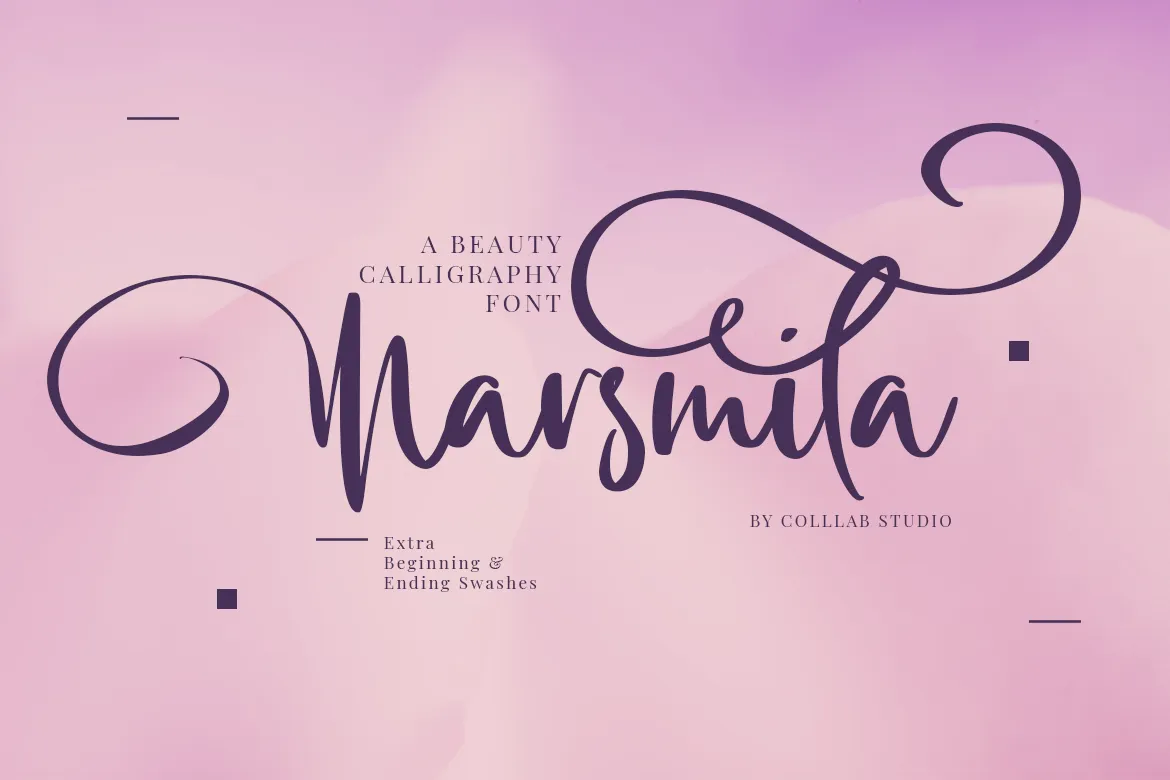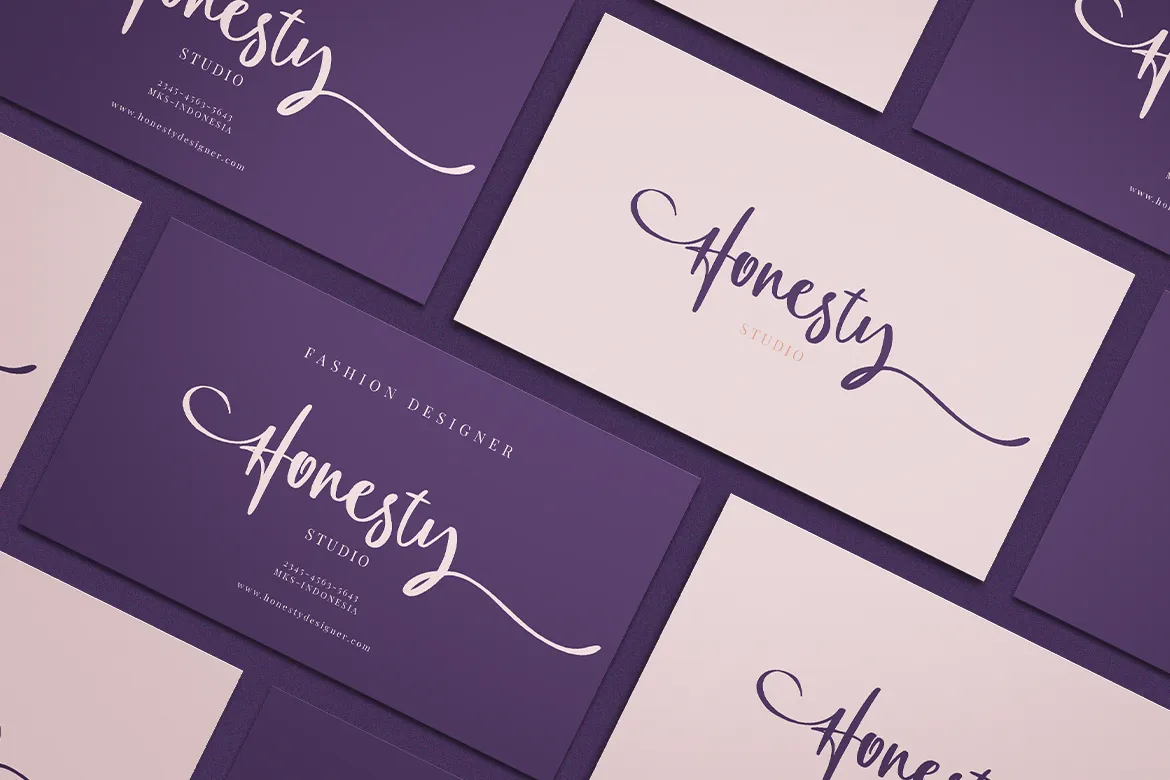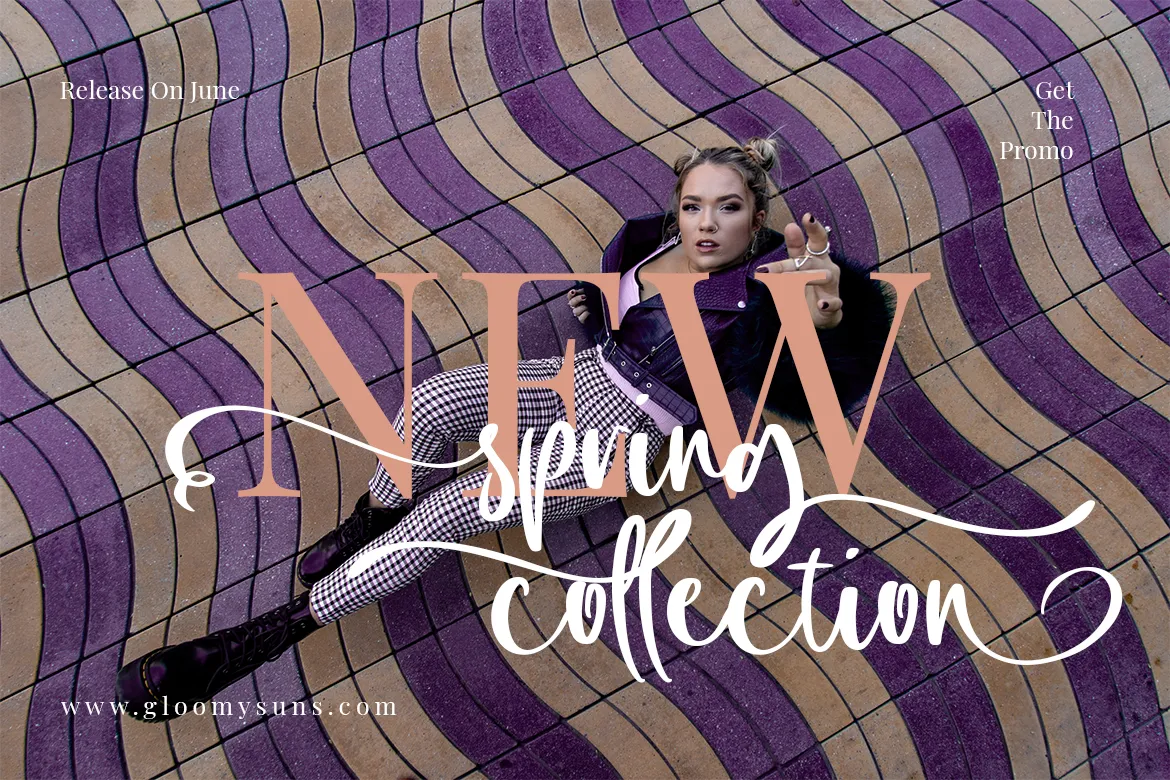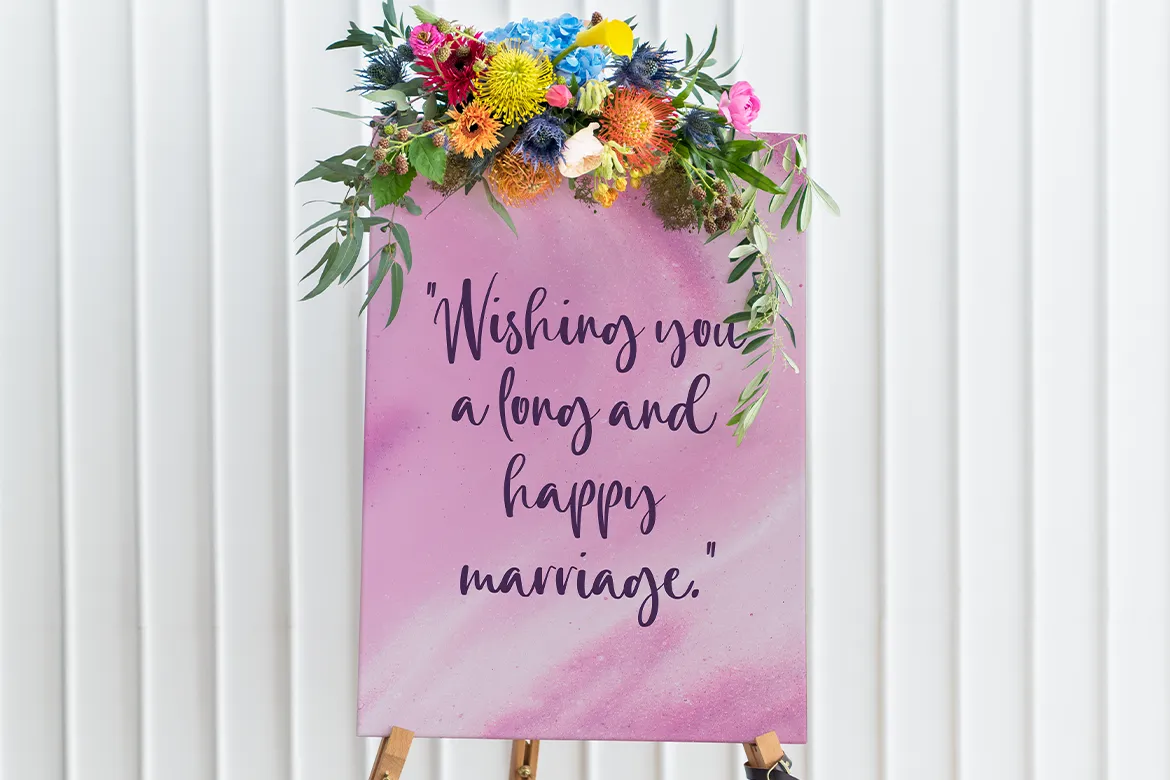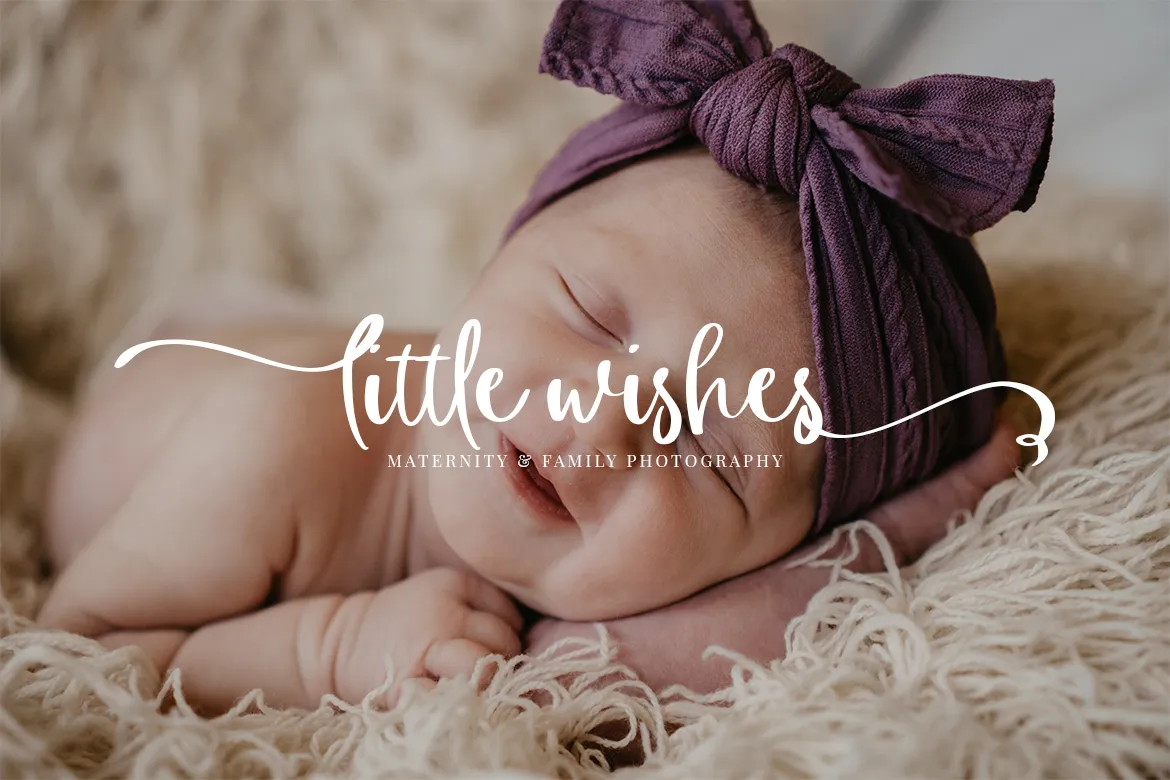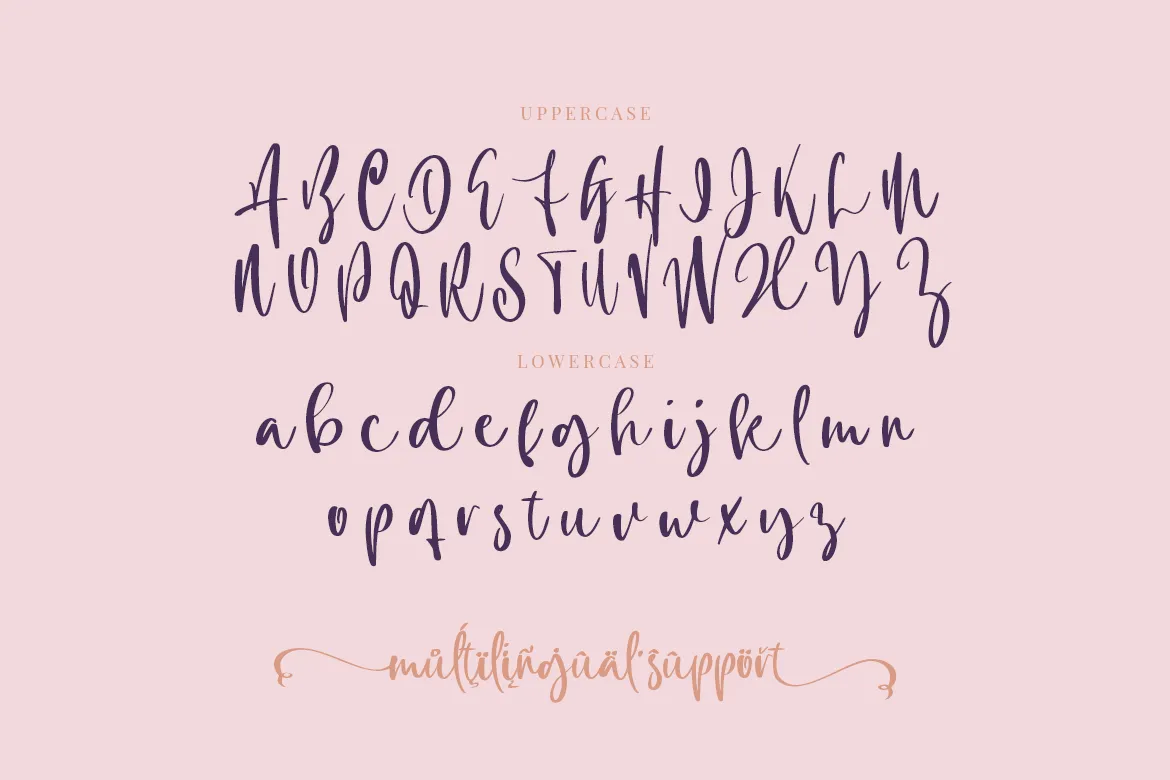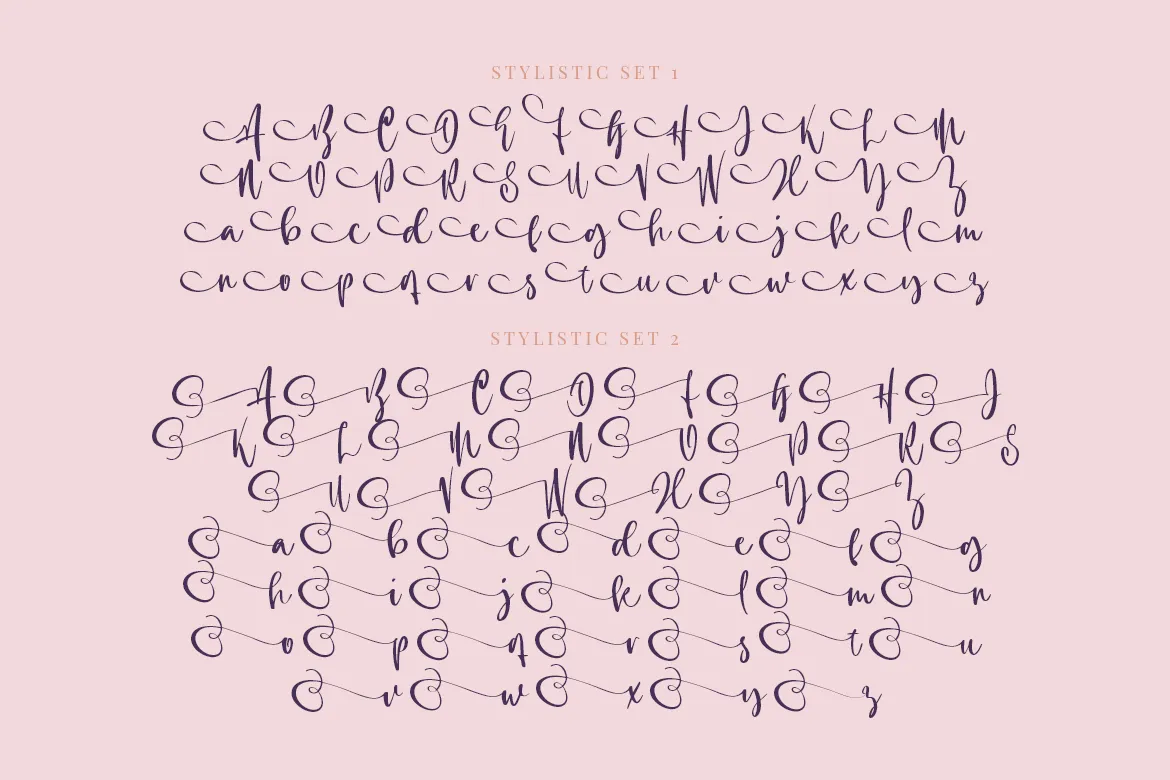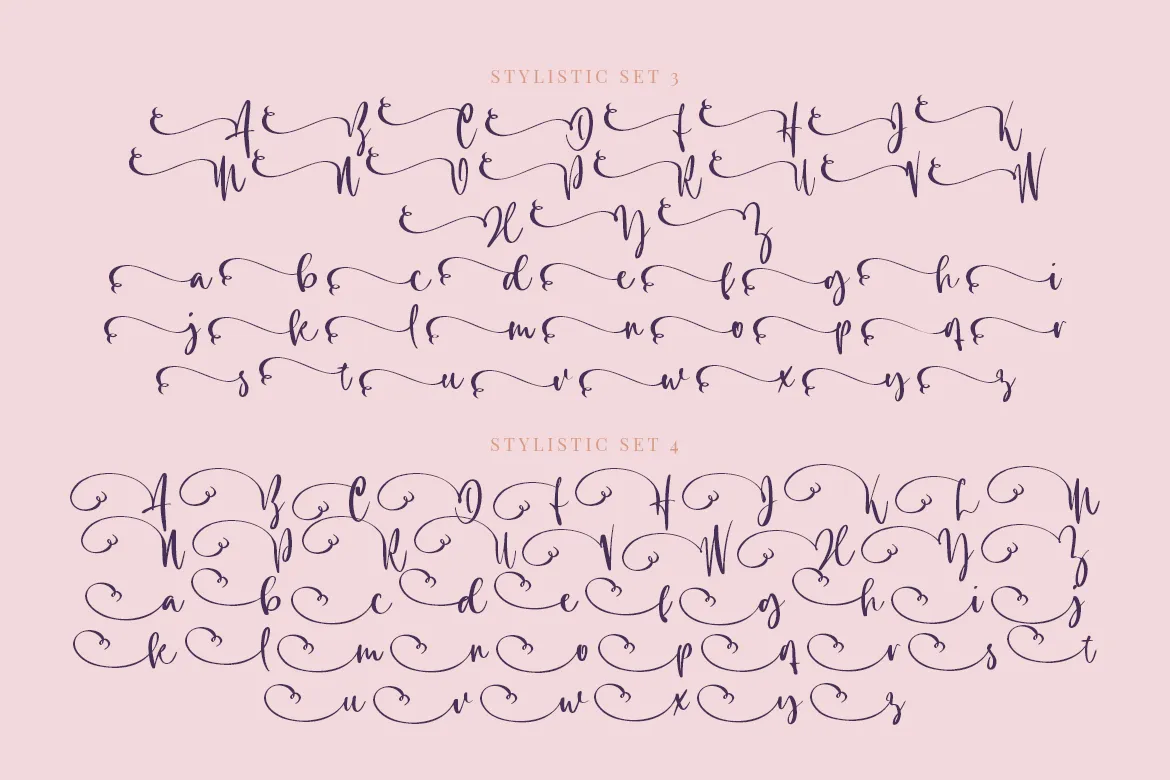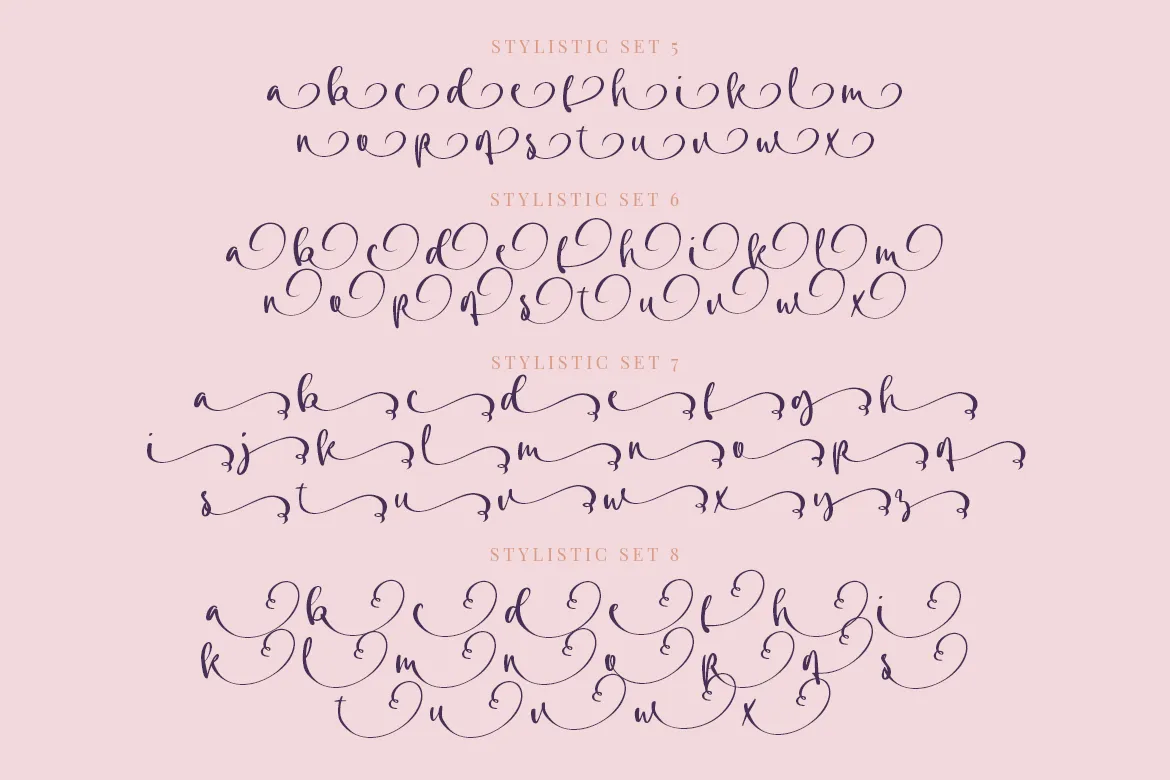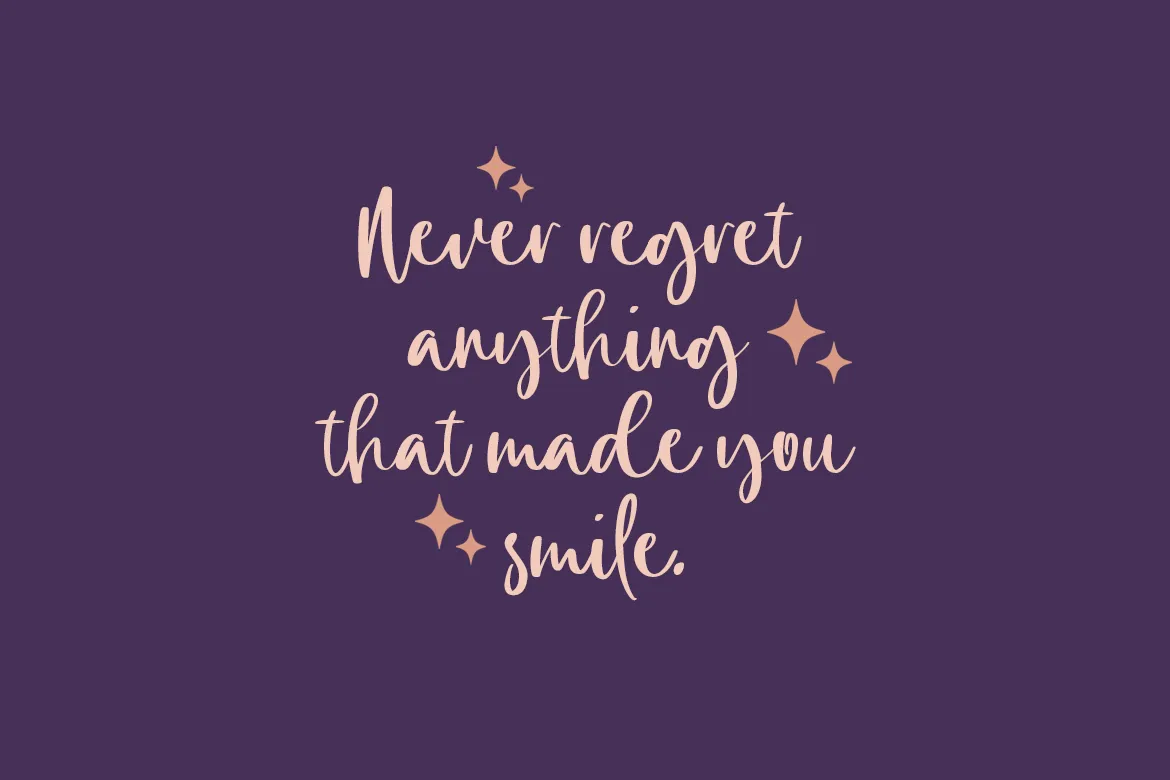
Marsmila
Introducing Marsmila, a luxury beauty calligraphy font inspired by the Victorian era and the Grace of the Roman letterforms as well as modern calligraphic aesthetics. Its graceful, curving lines and elegant swirls are a delight to behold.
Marsmila comes with massive number of glyphs and stylistic alternates, including extra beginning and ending swashes. Perfect for your next calligraphy project, or when you want to make your text look fancy!
Marsmila typeface works best for logos, posters, styling purposes such as invitations, greeting cards or any design projects which have some elegant vibe to them.
• 30 + Swashes & Ligatures
• 13 Sets of Stylistic Alternates.
• Multilanguage Support ( 87 Languages )